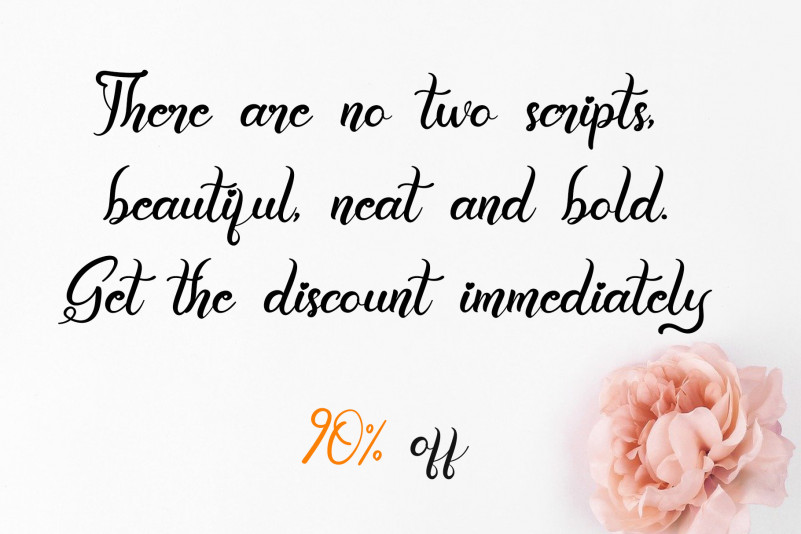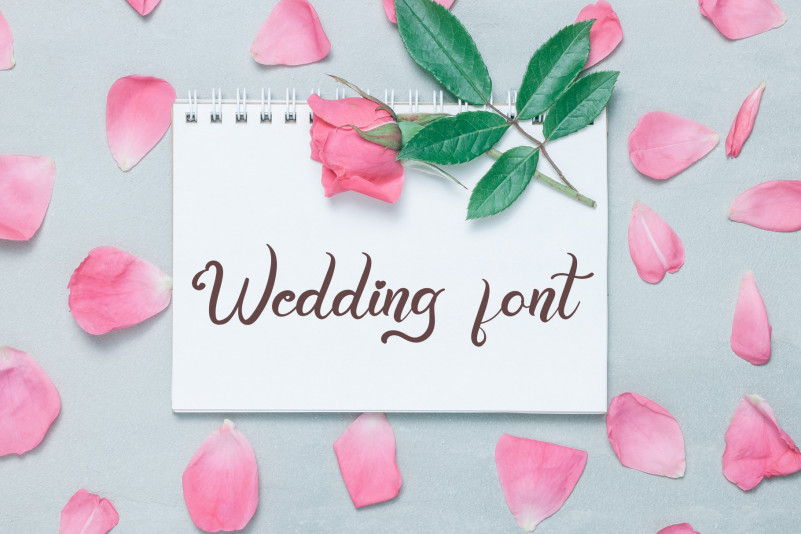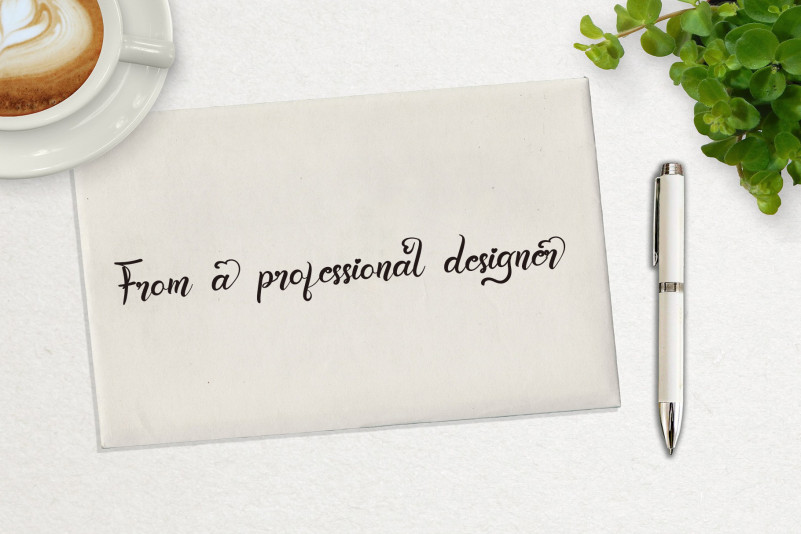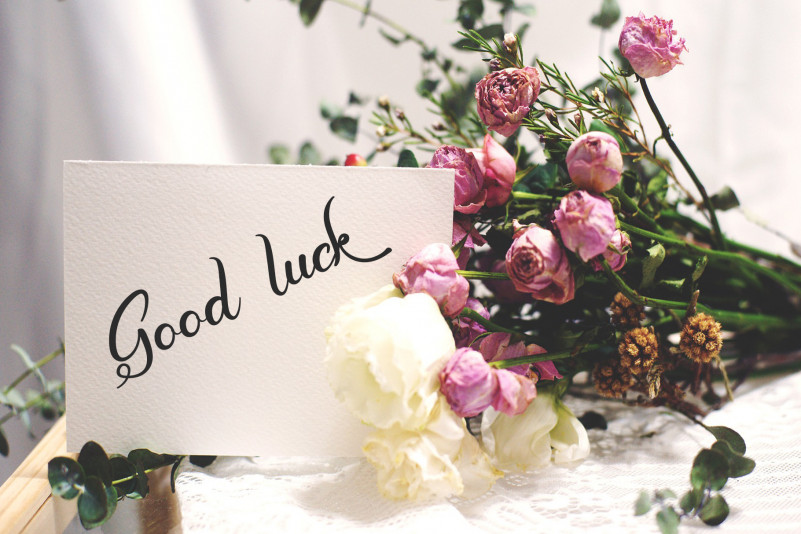
Welcome Summer Script Font
This is a ravishing script font. This font is neatly crafted and highly detailed. Whatever the topic, this font will be a wonderful asset to your font library, as it has the potential to enhance any creation.